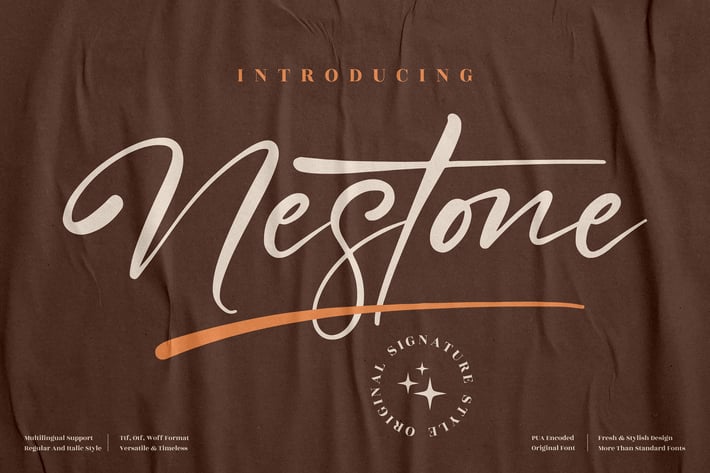
Nestone Signature Font
Nestone Signature Font delivers a refined handwritten flair with smooth, flowing strokes that bring an elevated, personal touch to any visual. Its modern signature style makes it perfect for premium branding, editorial layouts, social media aesthetics, and stylish creative projects that need sophistication and personality.
Elegant signature-style script
Smooth, flowing stroke details
Modern handwritten aesthetic
Great readability for both print & digital
Versatile for classy and personal brand visuals
Luxury branding
Logo signatures
Social media themes
Editorial & fashion designs
Invitations & stationery
Personal brand identity
* Elegant packaging
Bring effortless elegance into your designs with a signature font made to stand out.
Elegant signature-style script
Smooth, flowing stroke details
Modern handwritten aesthetic
Great readability for both print & digital
Versatile for classy and personal brand visuals
Luxury branding
Logo signatures
Social media themes
Editorial & fashion designs
Invitations & stationery
Personal brand identity
* Elegant packaging
Bring effortless elegance into your designs with a signature font made to stand out.